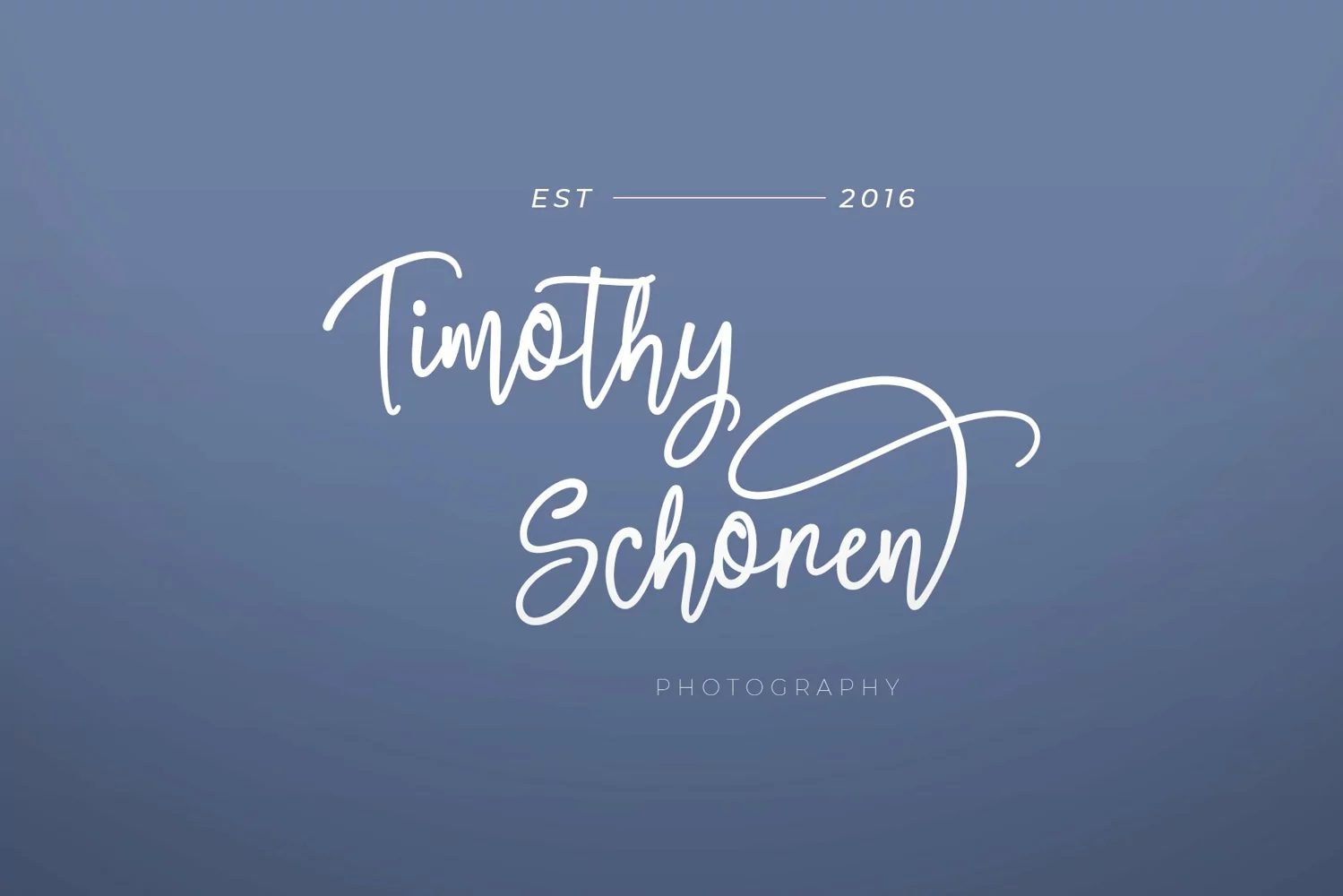
Delighted - Beautiful Modern Calligraphy Font
Delighted is a simple modern calligraphy font, with curves and lines are so soft that makes this font look pretty and realistic.
With 420 Charachters, Delighted is perfect to all your design project, like invitation card, product logo, food brand logo and much more.
Delighted also supported with extra character that included in : Ligatures and Stylistic set 01 - Stylistic set 10 .
that will help you get beautiful style with your own creation.